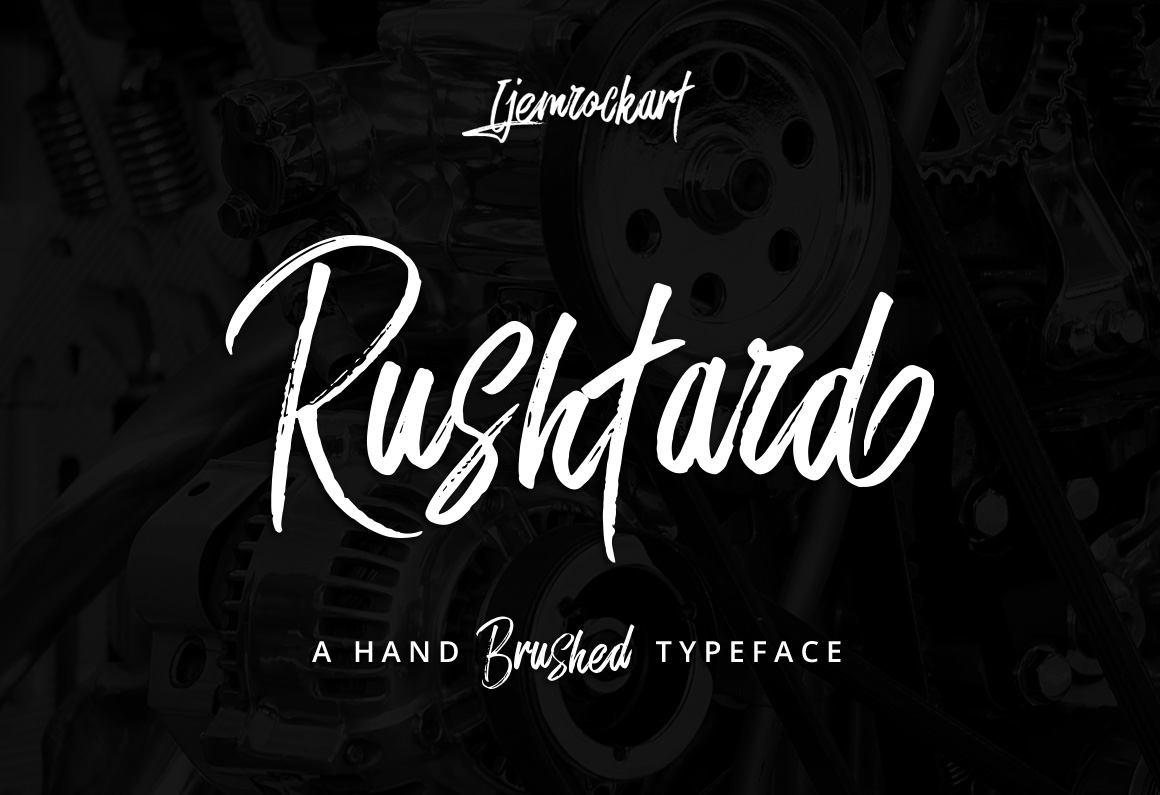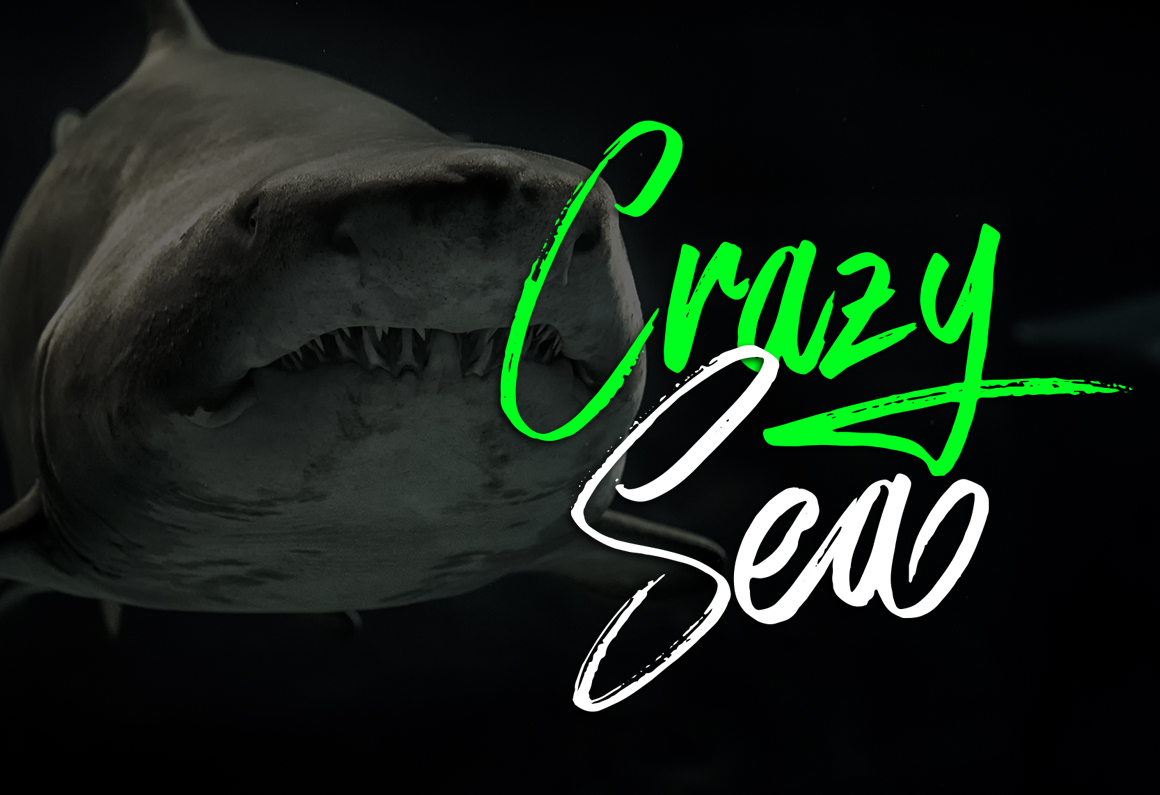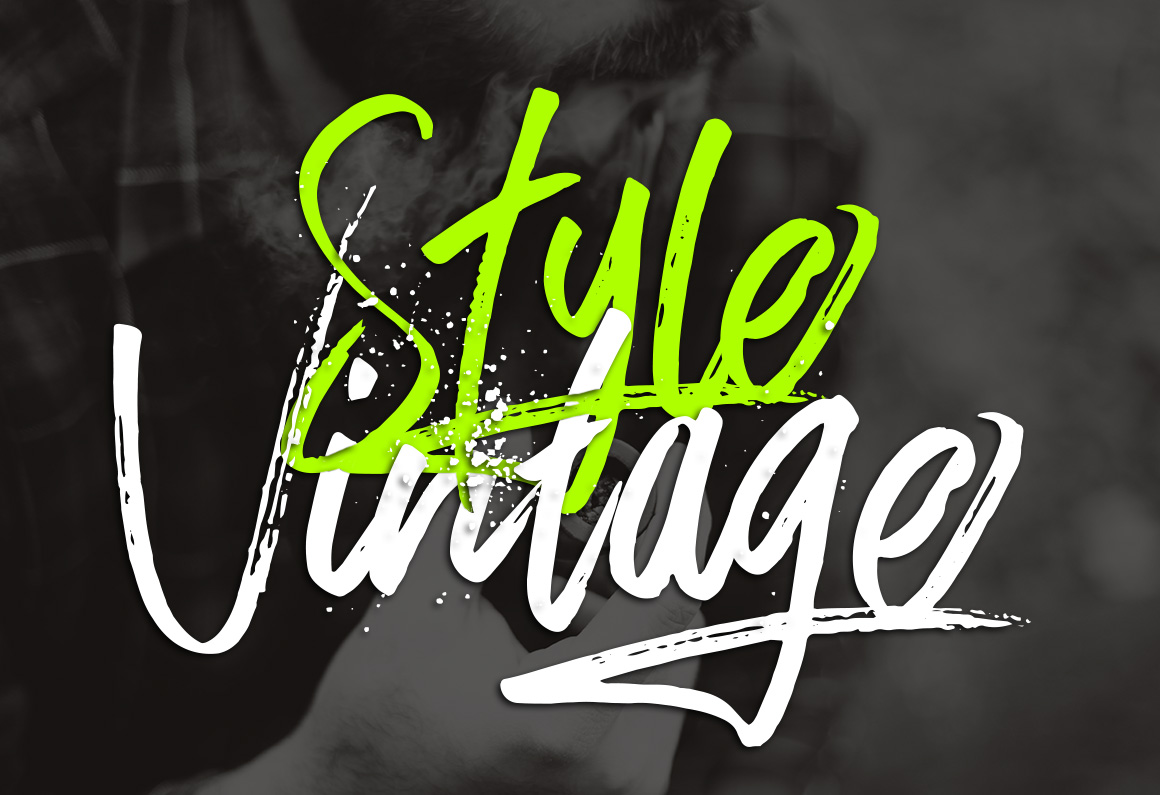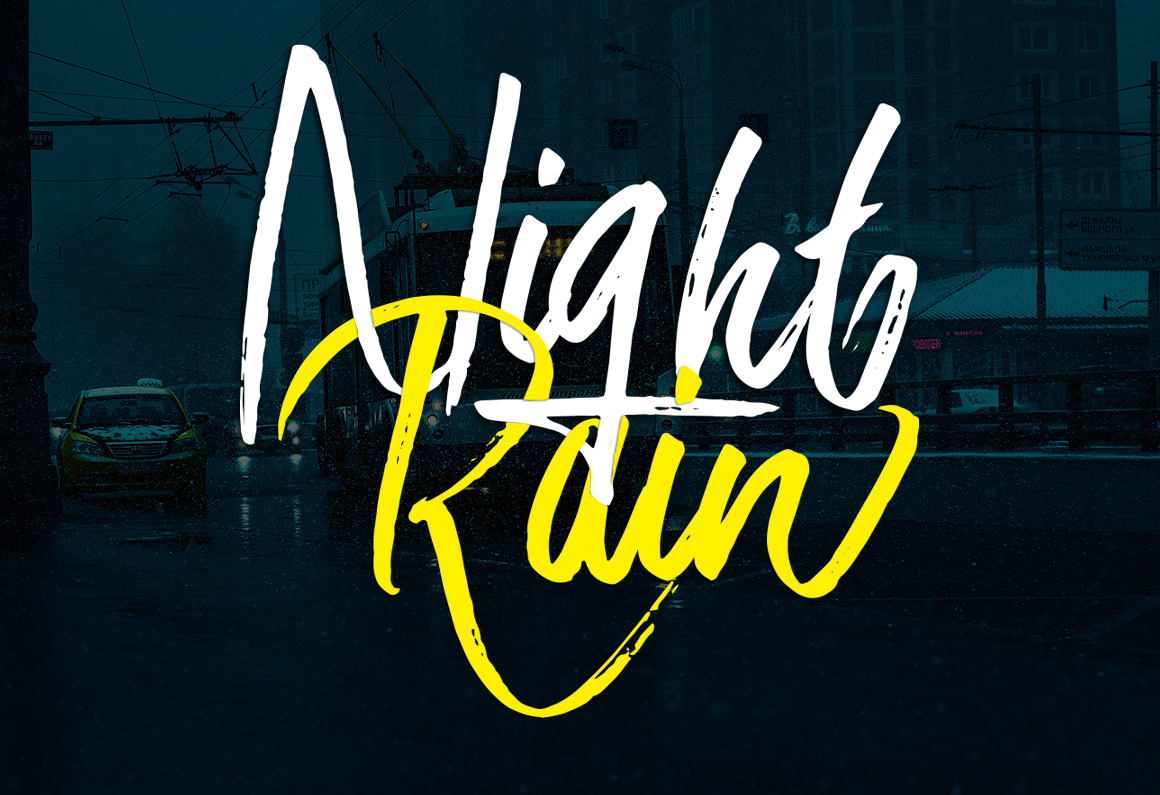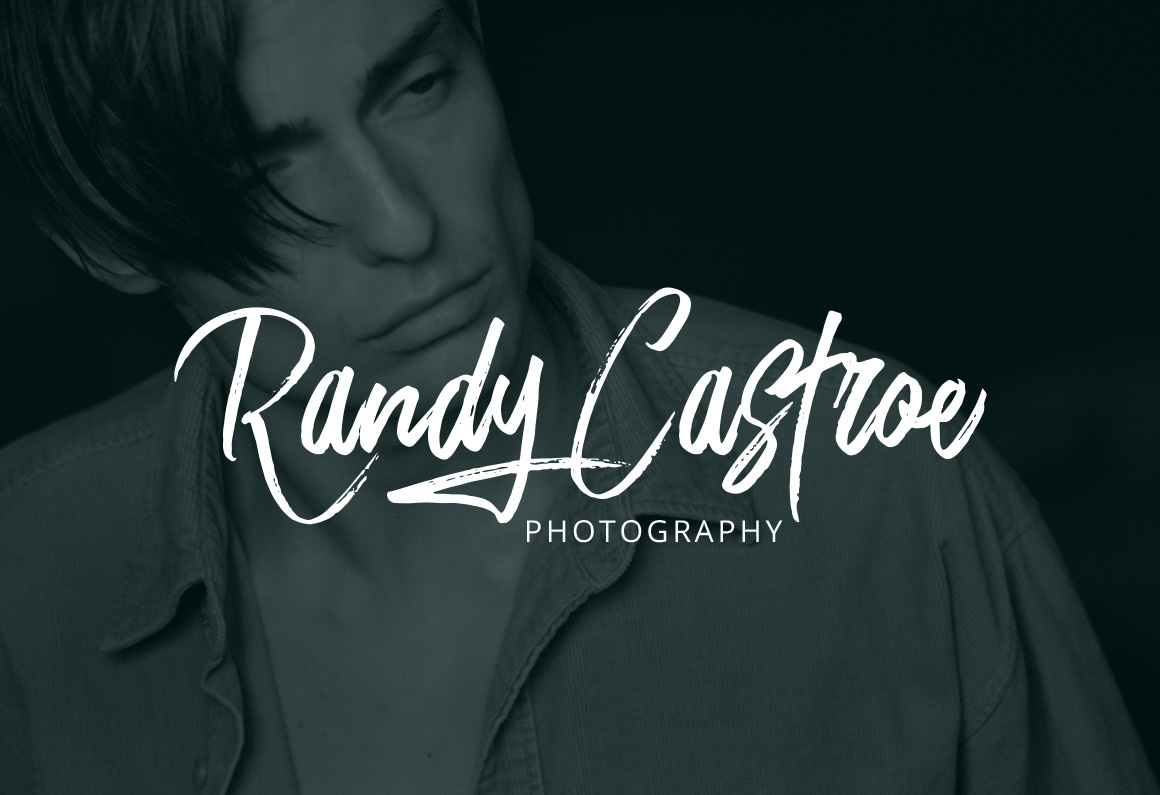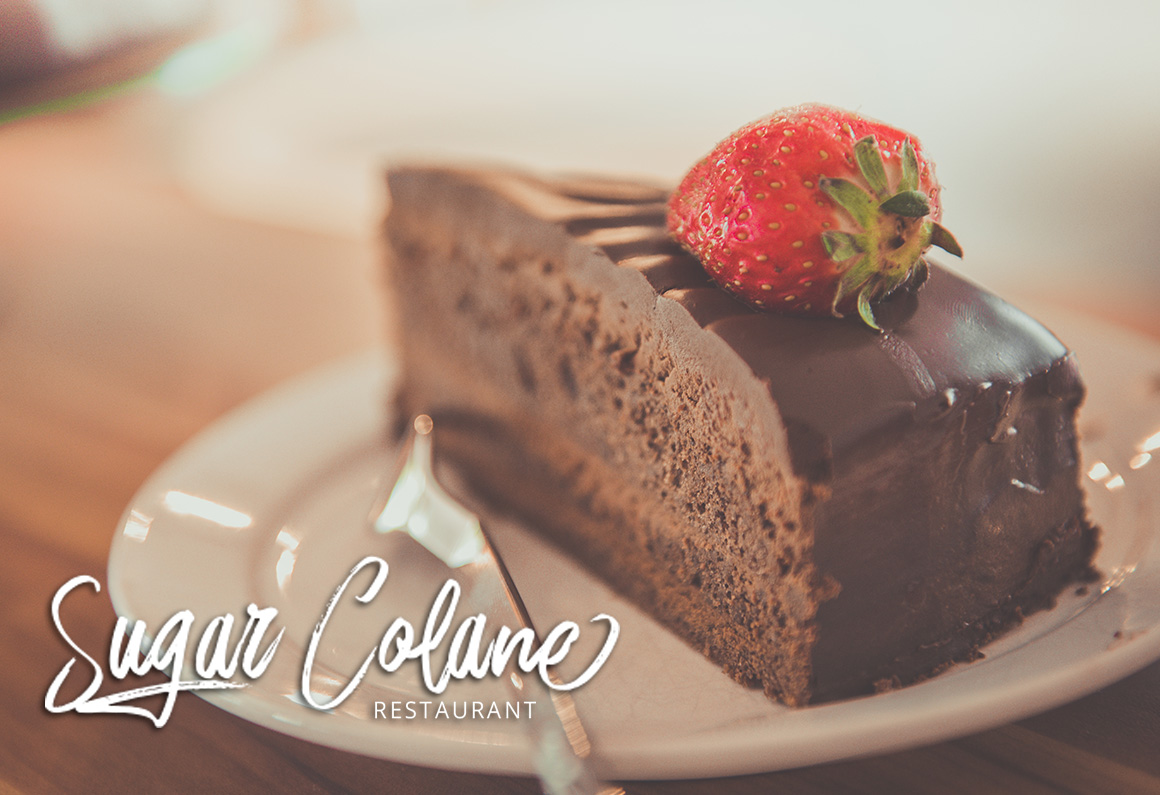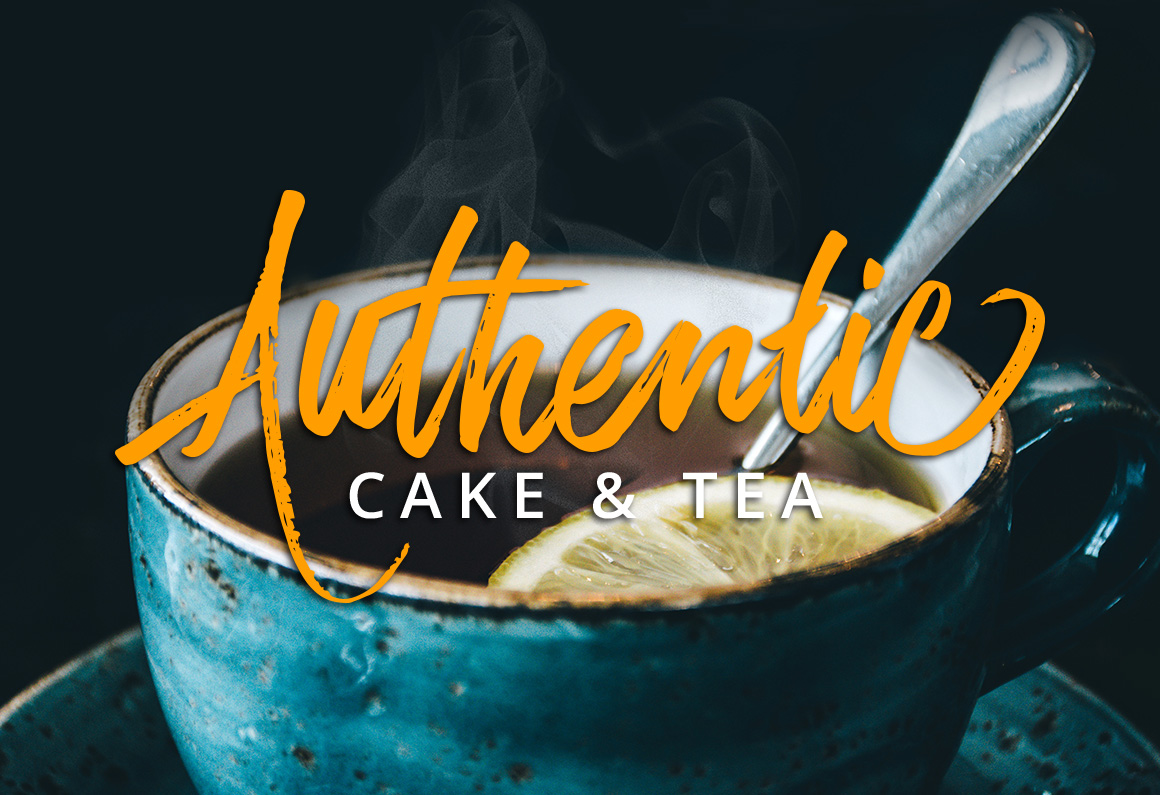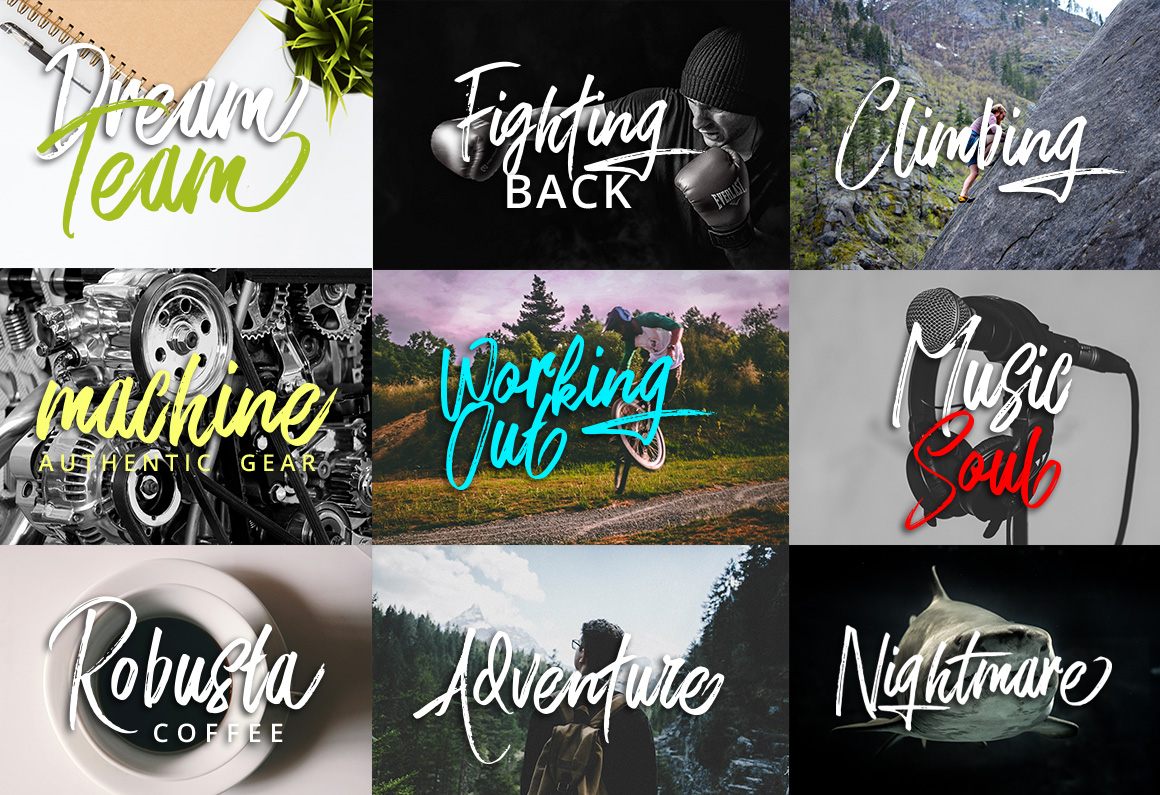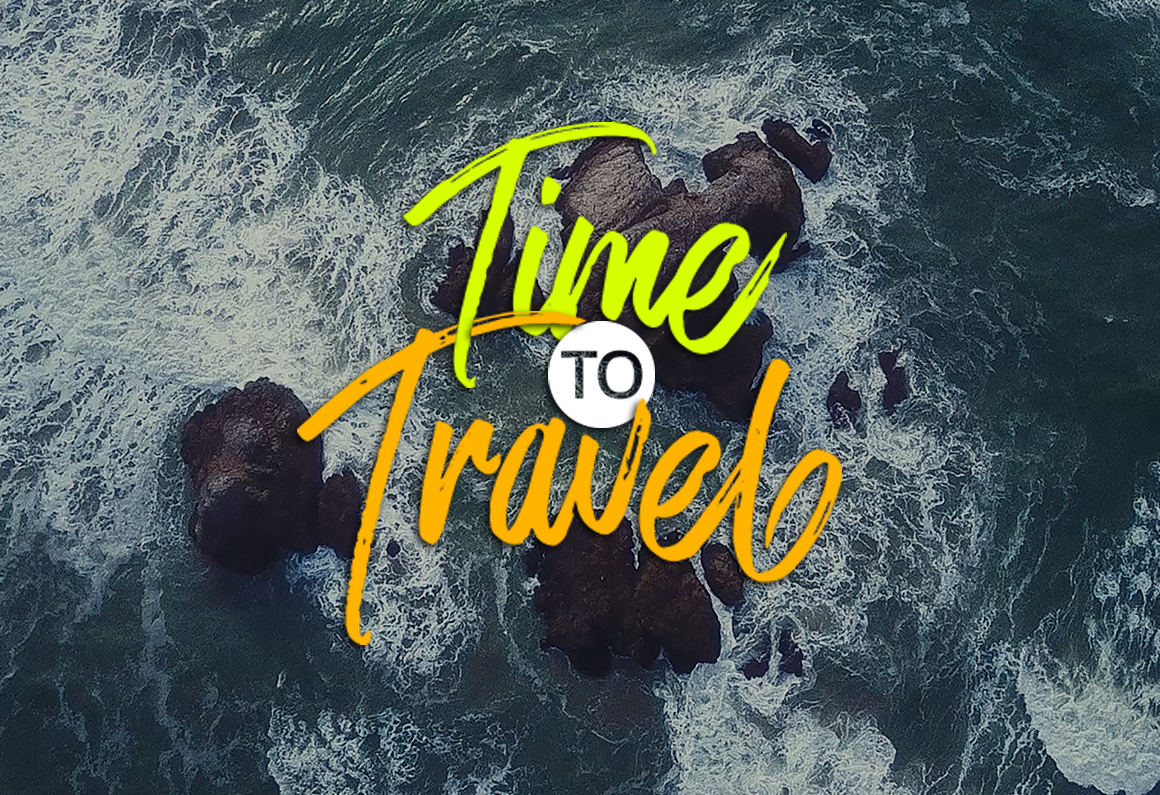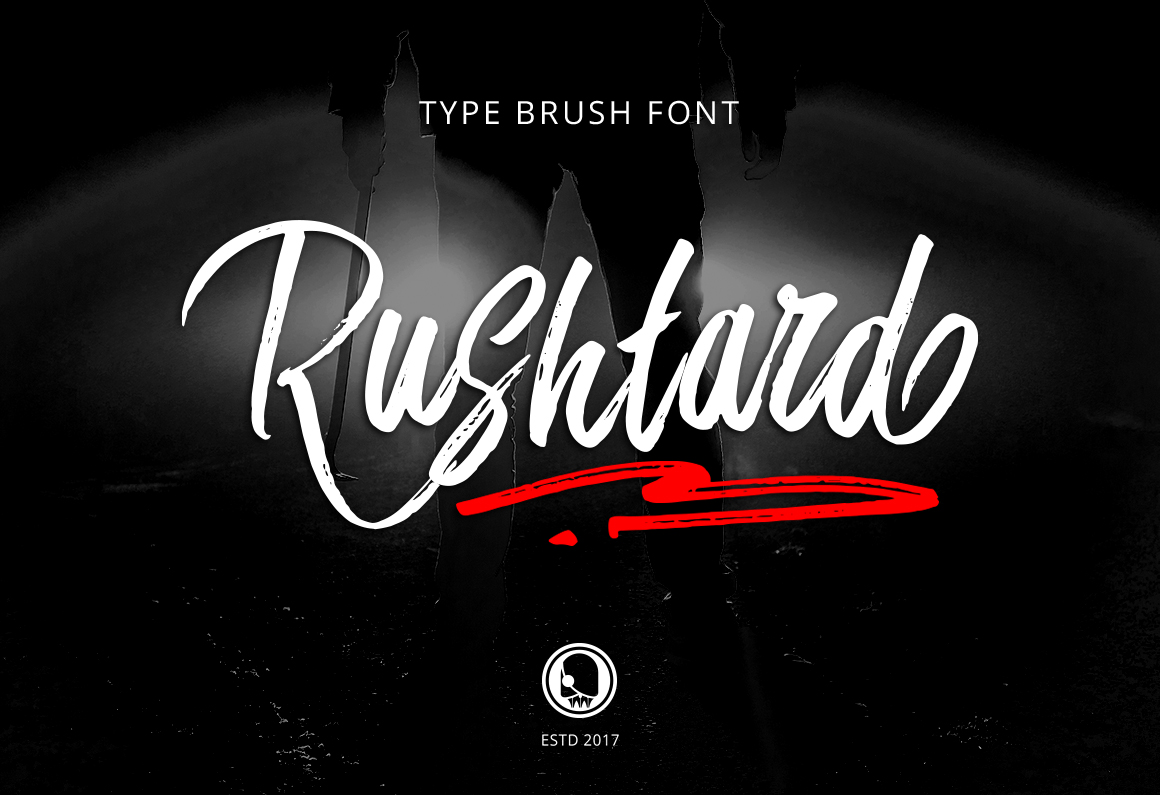
About Rushtard Brush Font
Rushtard is a beautifully crafted brush typeface, with a grunge appeal making it accessible to a plethora of design options. Rushtard also has a flowing script style that gives it a trendy and modern appeal.